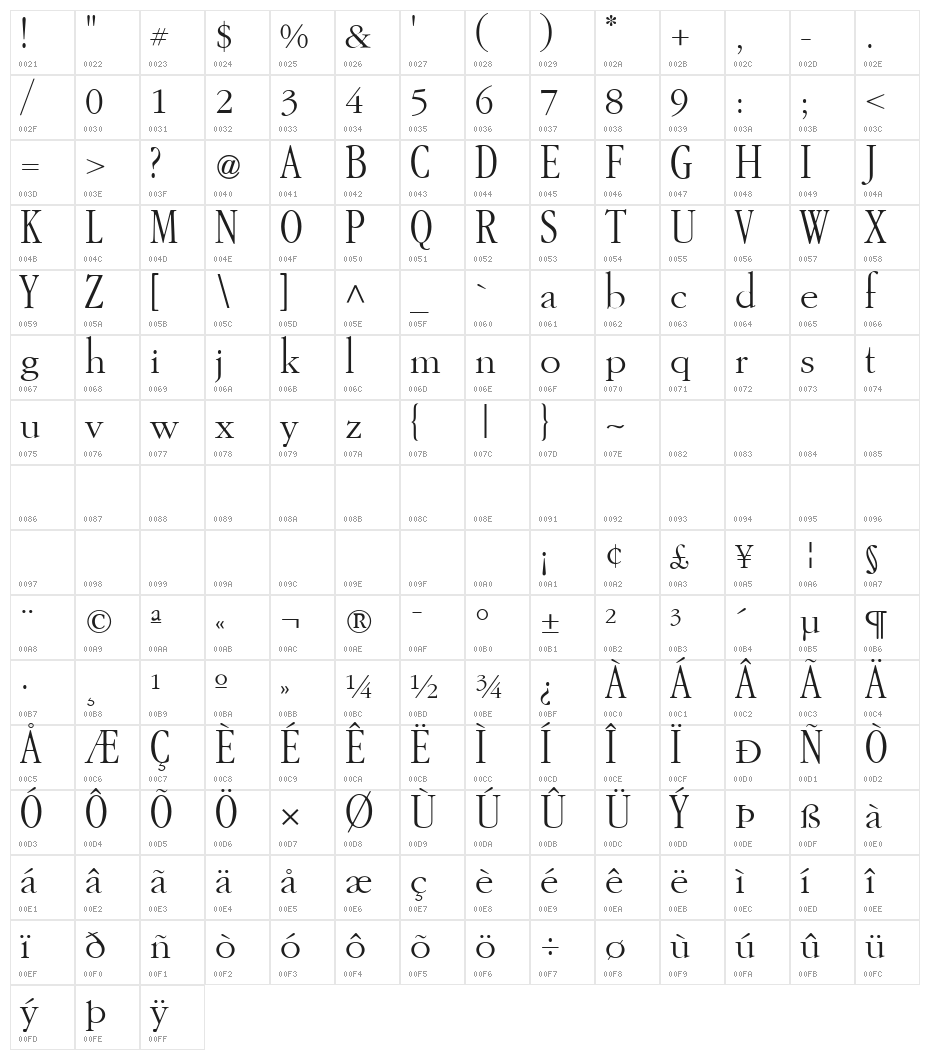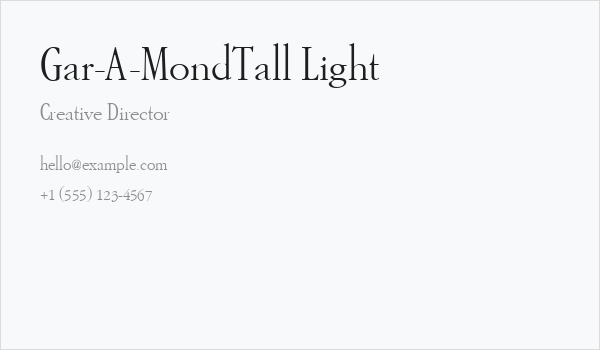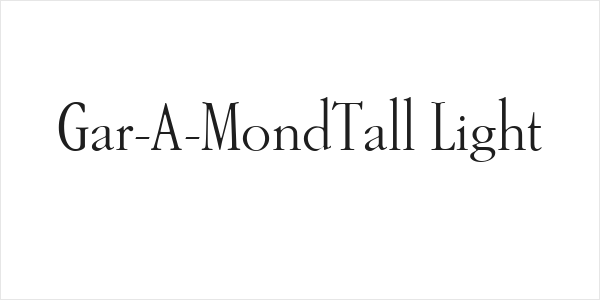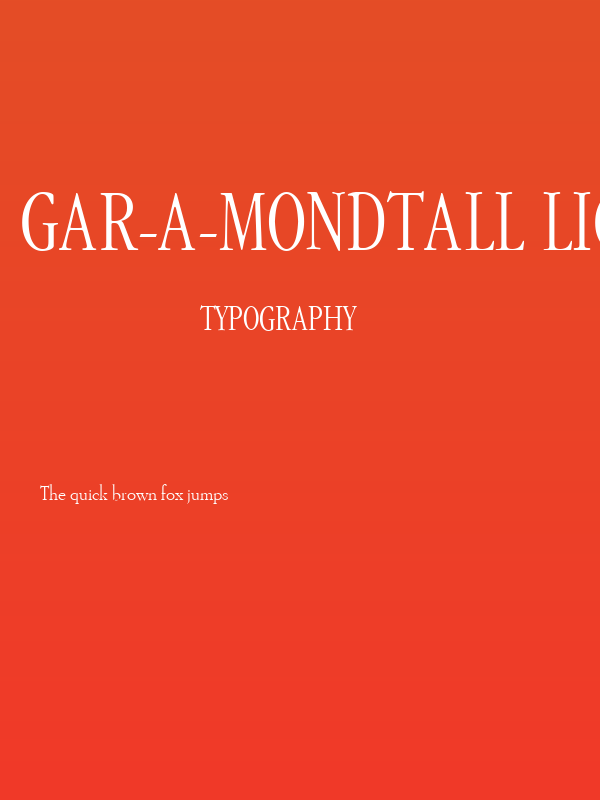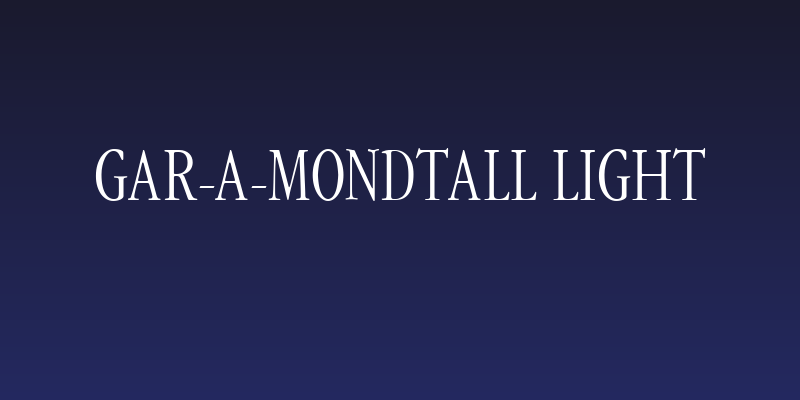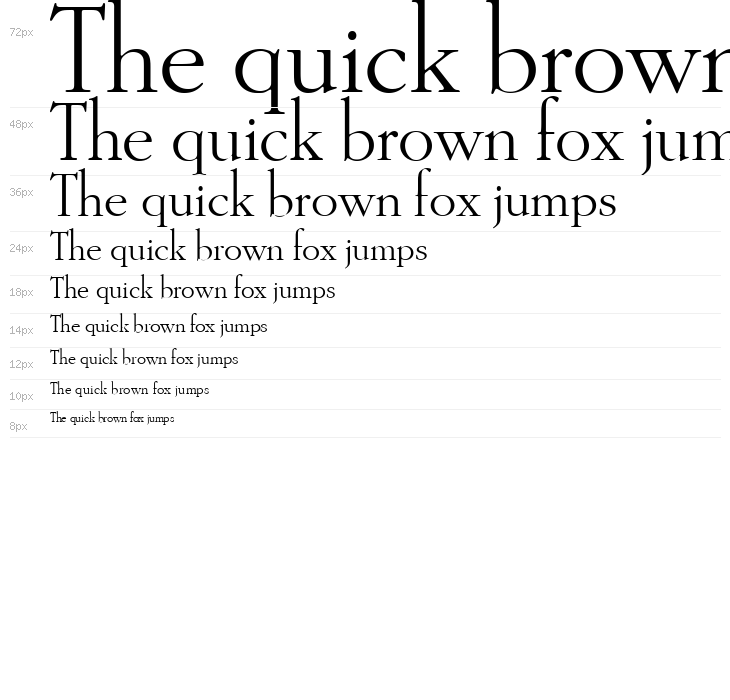
Gar-A-MondTall Light Font
Gar-A-MondTall Light Description
This font exhibits a classic and elegant serif style with tall, slender characters that convey a sense of sophistication and tradition. The uppercase letters are stately and well-proportioned, while the lowercase letters maintain a harmonious balance with slightly rounded edges. The numerals are clear and distinct, making them easily readable. Special characters are crafted with precision, adding to the font's versatility. The overall design is refined, with a light weight that enhances its graceful appearance. This font is ideal for projects that require a touch of elegance and timelessness.
| Proposed Projects | Ideal for book covers, formal invitations, branding for luxury products, and editorial design. |